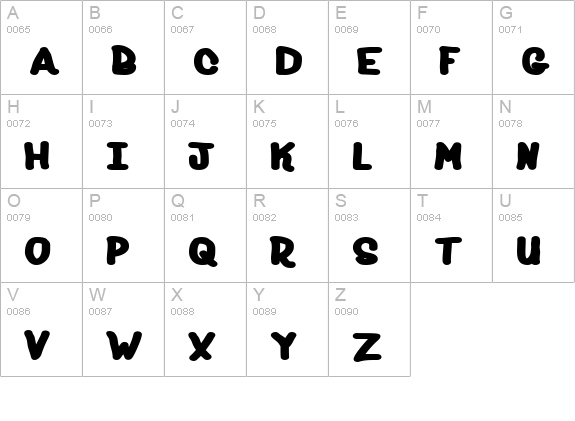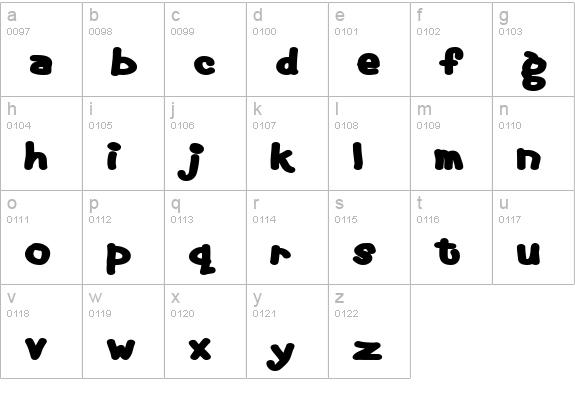
Fat Font Details
Fat Font is a bold and eye-catching typeface that exudes power and strength. Its thick strokes and rounded edges make it perfect for creating impactful headlines and titles that demand attention. Whether you're designing posters, logos, or social media graphics, Fat Font is sure to make a statement. Best of all, Fat Font is available for free download at FontsMarket.com. This means you can easily add this versatile typeface to your design arsenal without breaking the bank. Don't miss out on the opportunity to enhance your projects with the bold and dynamic style of Fat Font. Download it today and let your creativity shine!